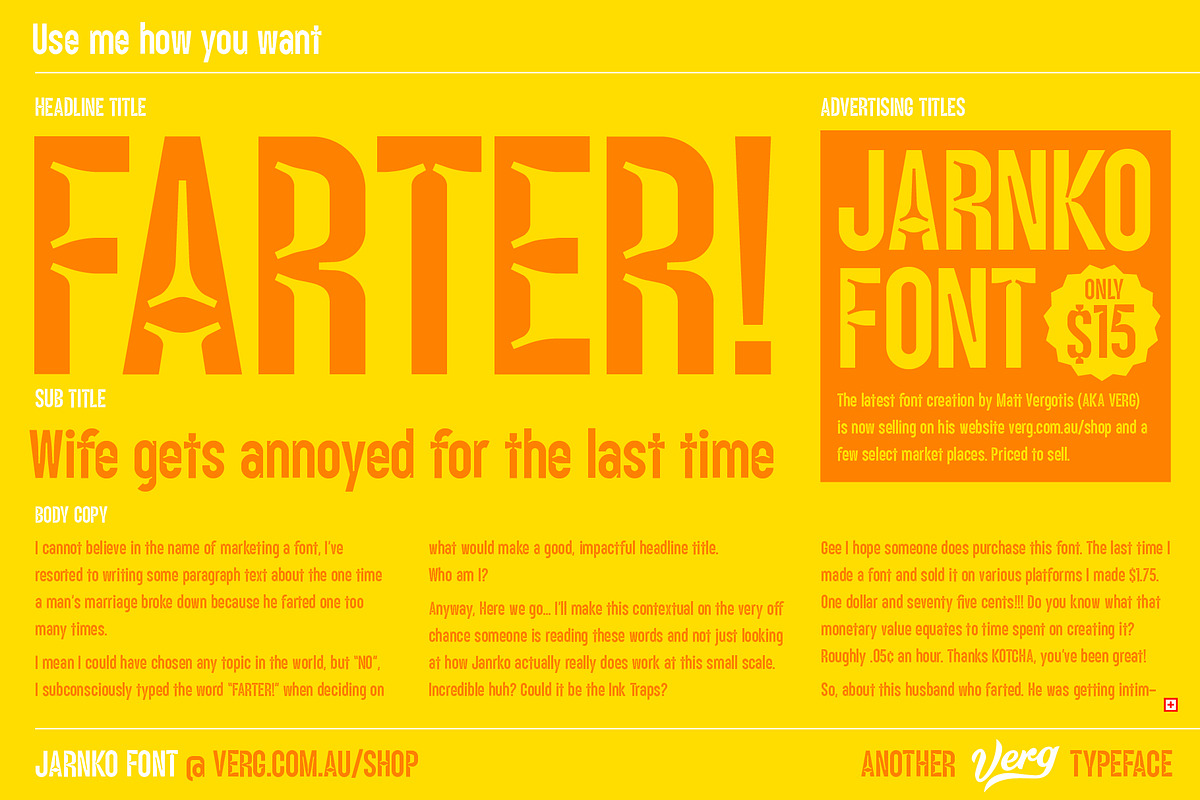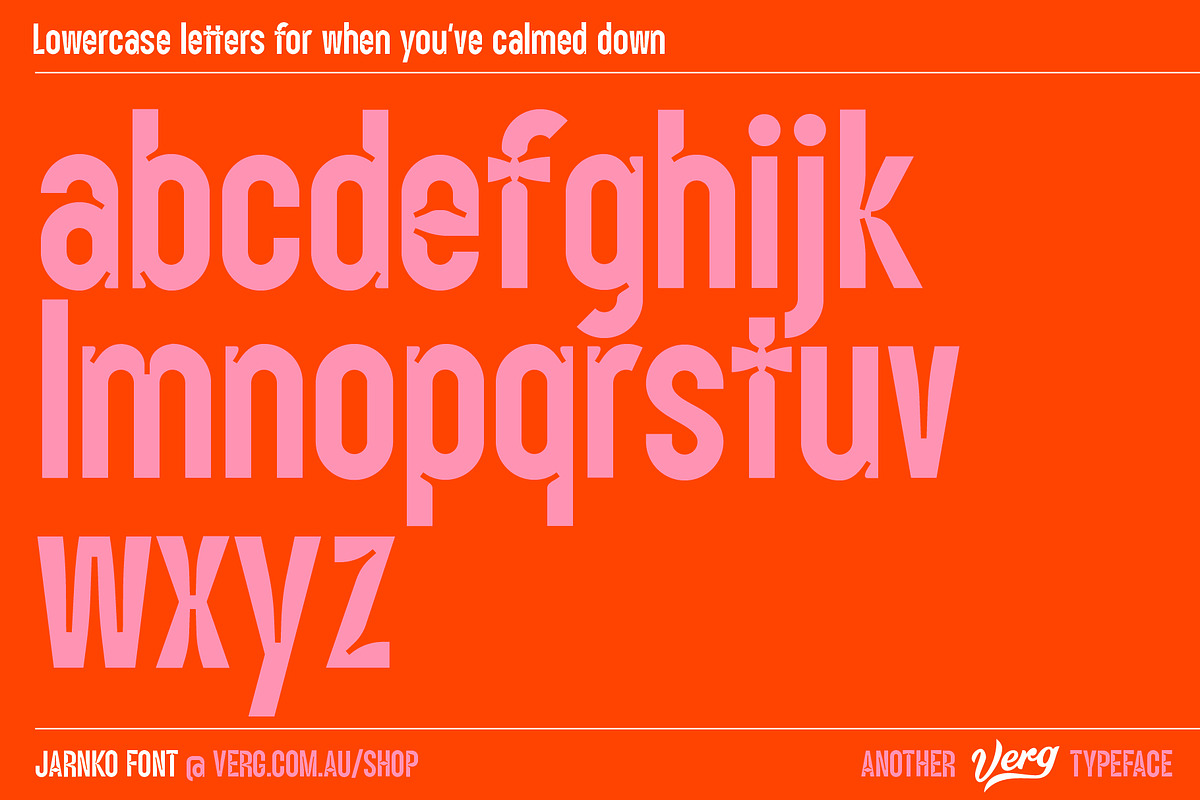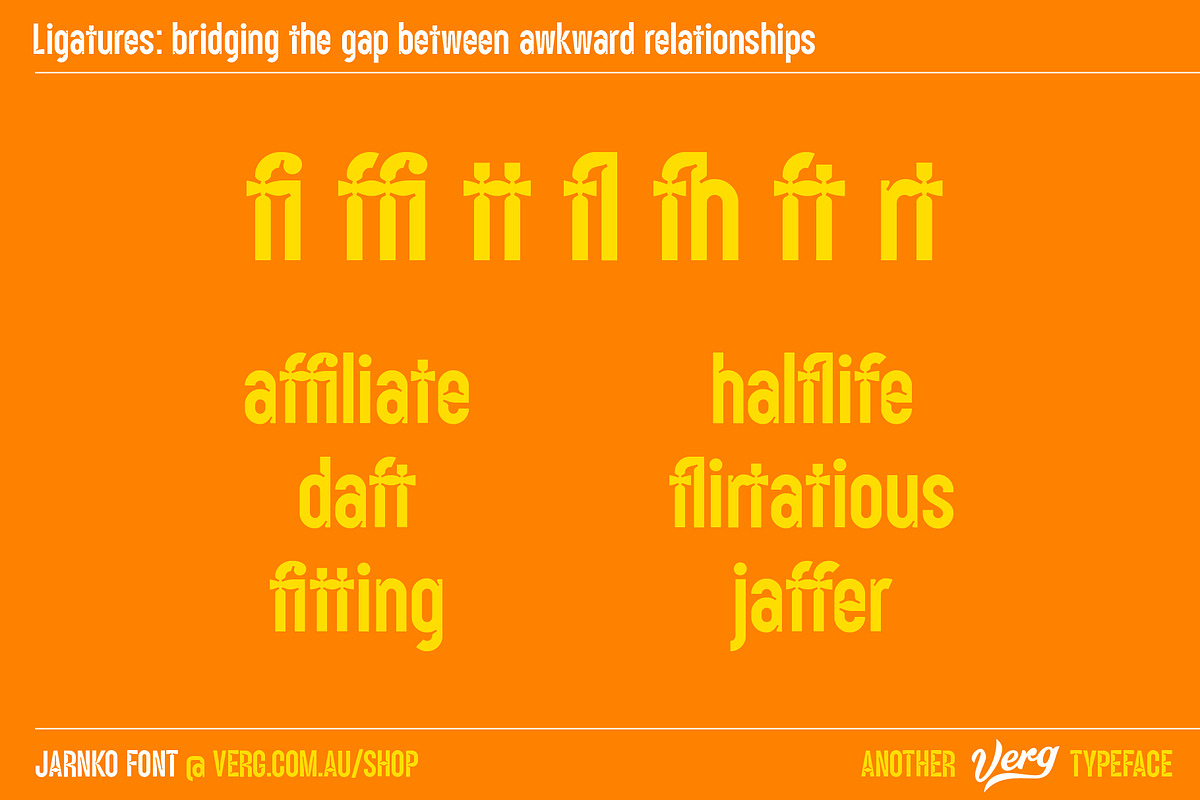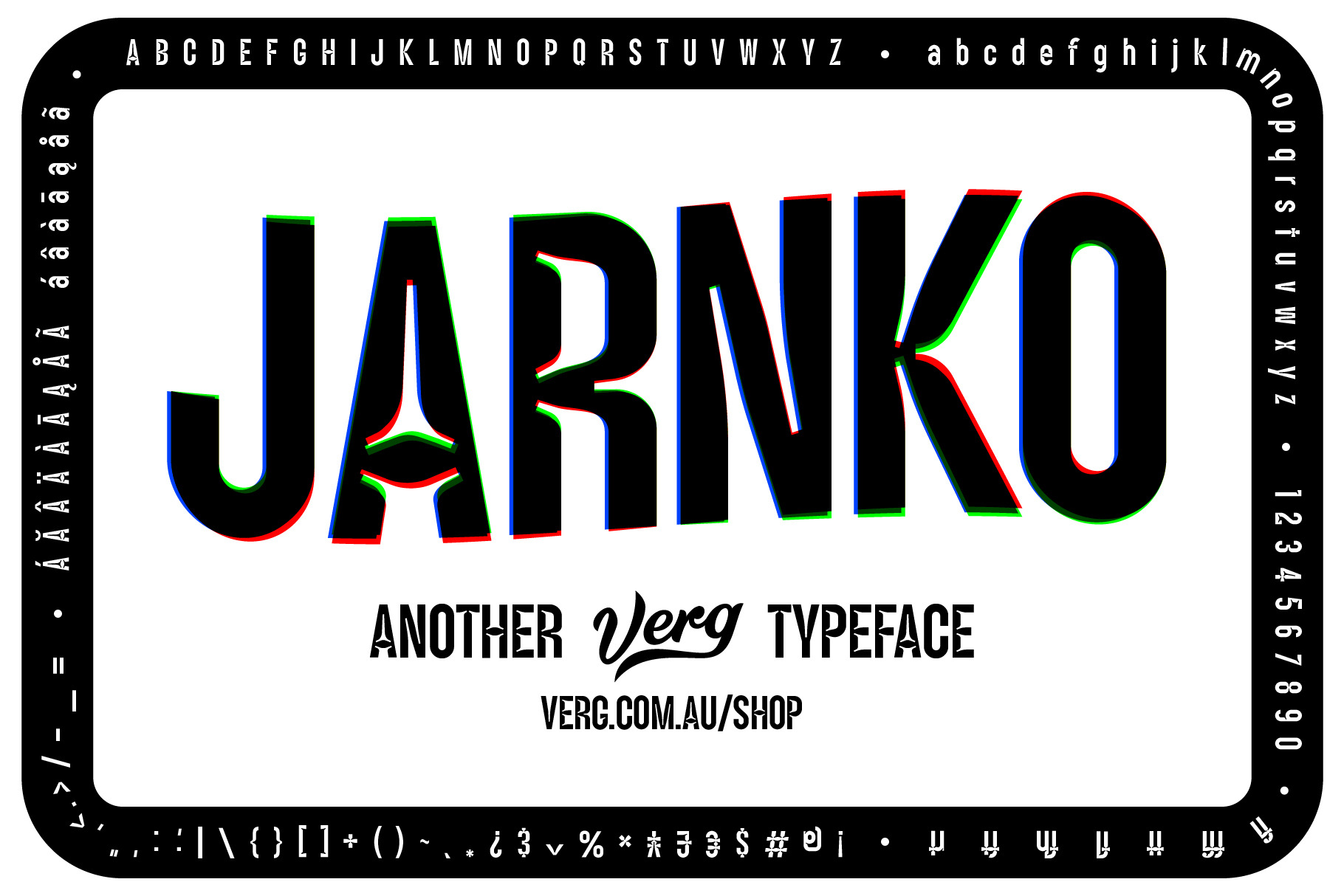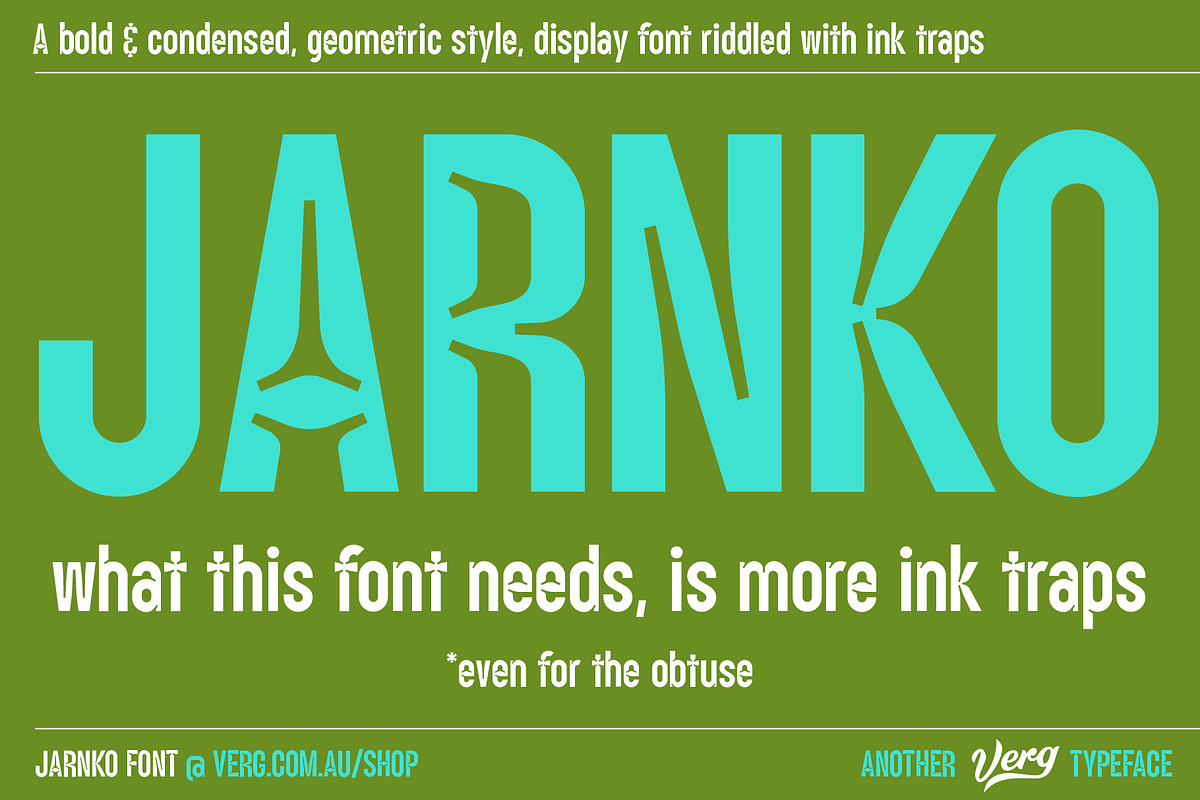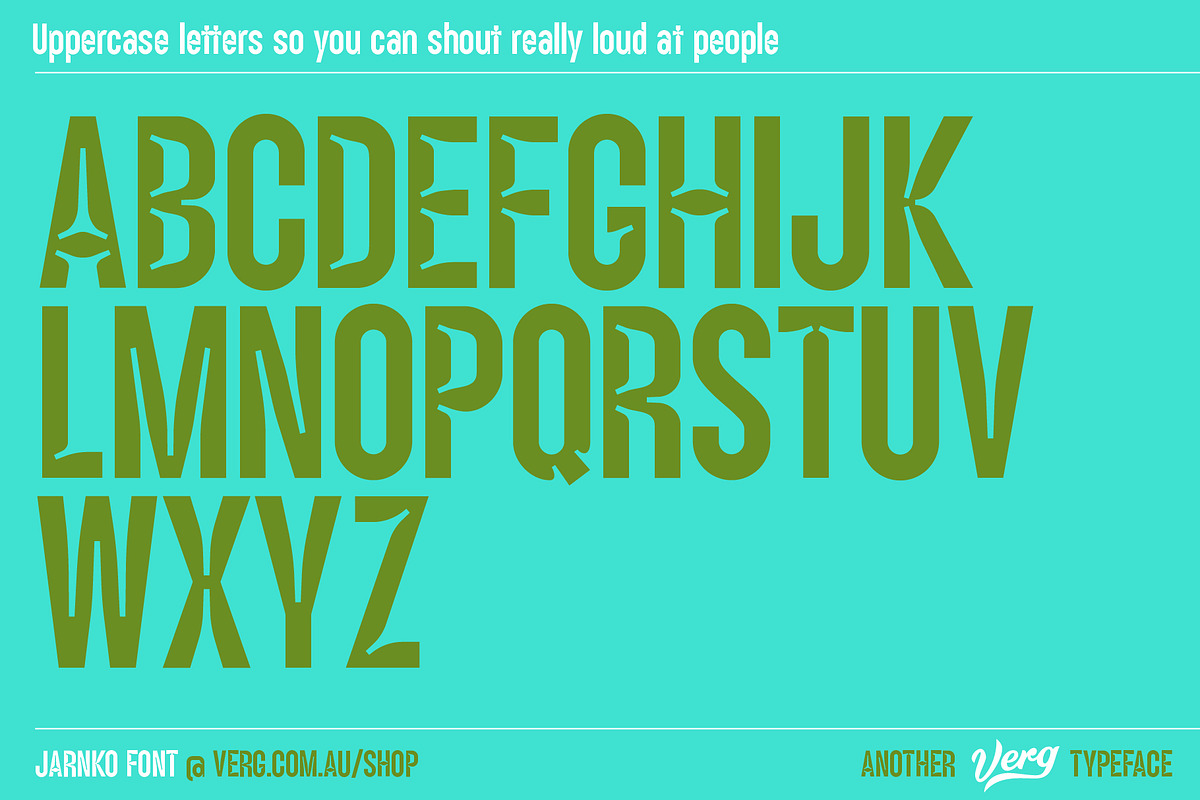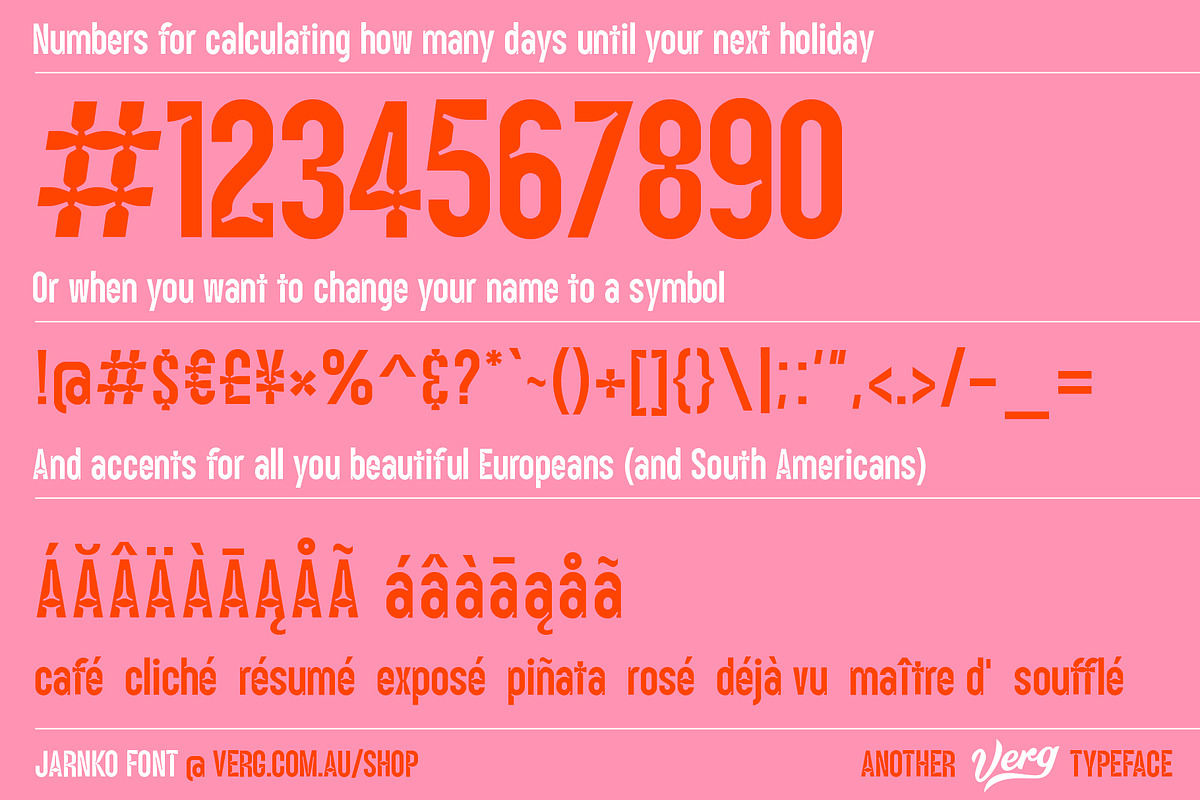
Jarnko Font
This bold and condensed typeface, accentuated with large ink traps is full of character, perfect for titles and subtitles, whether it be for editorial or advertising purposes. It also works really well in large blocks of text too.
Jam packed with glyphs to make it perfectly functional across Eastern and Western European languages, there’s also a number of ligature combinations to make Jarnko a very versatile and interesting font to have in your bag of tricks.